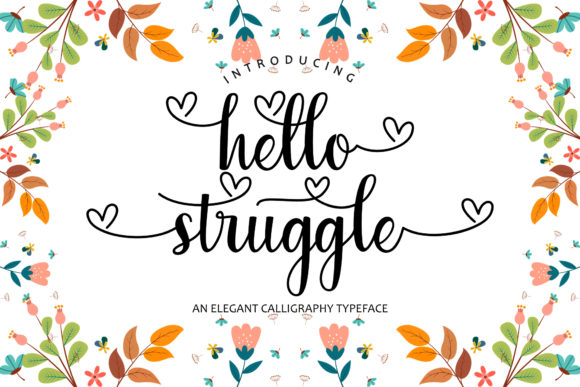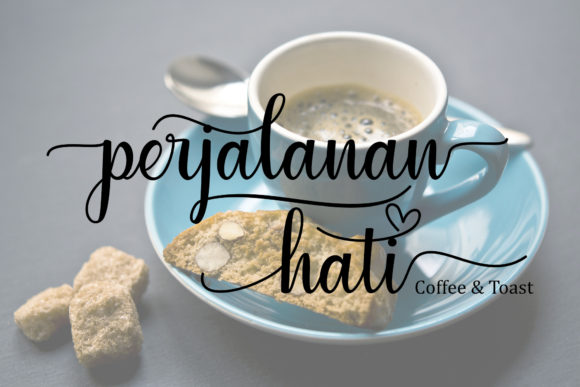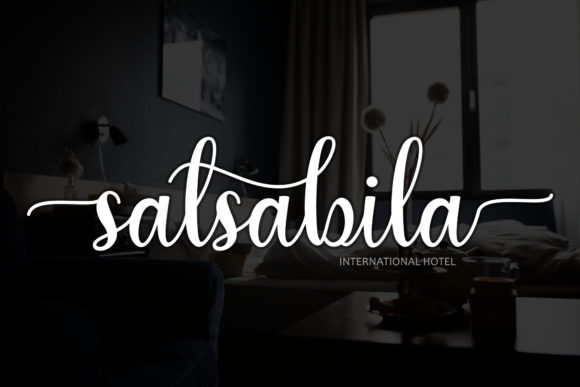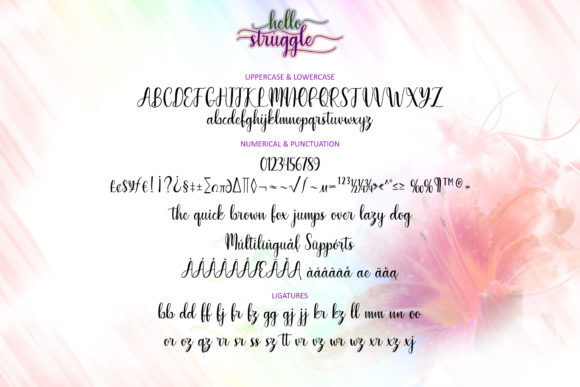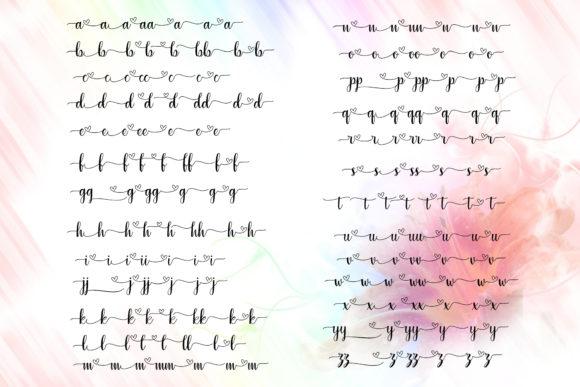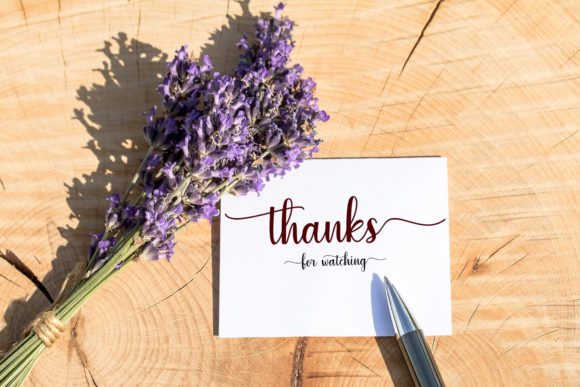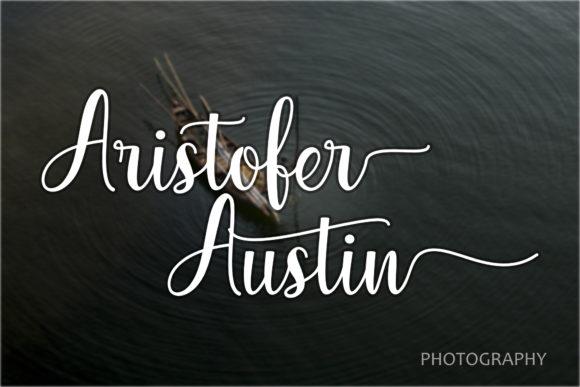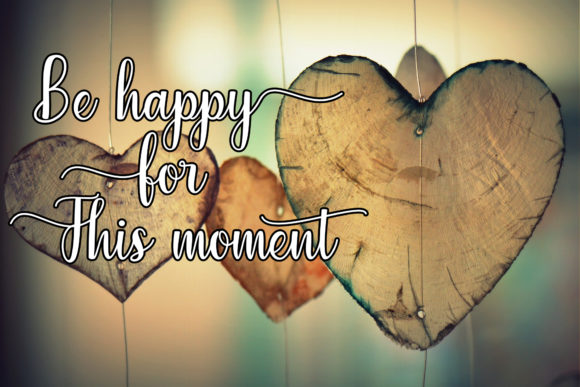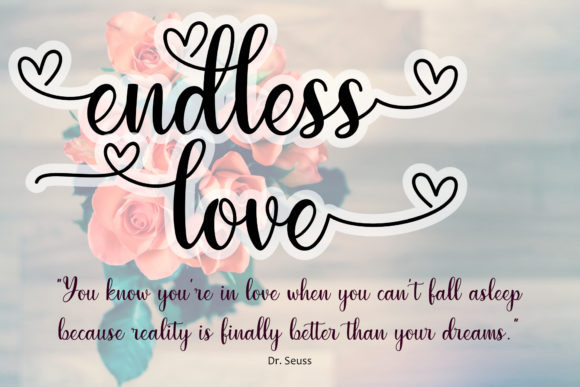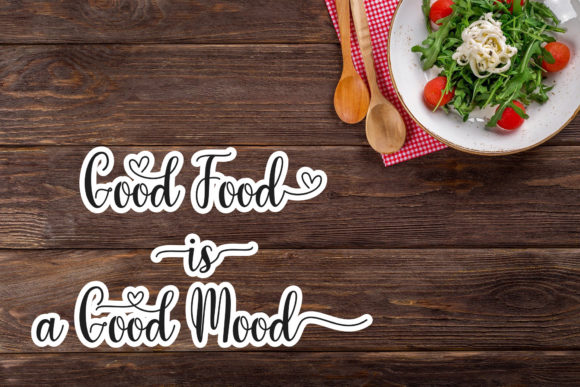
Hello Struggle Font
About Hello Struggle Font
Hello Struggle is a contemporary and artistic calligraphy typeface that offers a plethora of creative possibilities. With an extensive collection of alternates and ligatures, this font allows you to craft unique and eye-catching designs.
The font’s varied baseline adds a touch of dynamism to your text, creating a sense of movement and energy. Its smooth lines give the letterforms a fluid and elegant appearance, making it a perfect choice for sophisticated and visually appealing designs.
Hello Struggle is adorned with a vast array of gorgeous glyphs, featuring over 550 characters to choose from. Among these, you’ll find more than 200 alternate characters that come with swashes, flourishes, and other decorative elements. This rich assortment of options opens up a world of creative opportunities, allowing you to customize and embellish your text to suit any project.
Whether you’re working on invitations, branding materials, posters, quotes, or any design that requires a touch of elegance and uniqueness, Hello Struggle delivers with its artistic flair and versatility.
As a PUA-encoded font, Hello Struggle ensures easy accessibility to all of its glyphs and swashes. This encoding enables you to access and use the vast collection of alternates effortlessly, enhancing your creative process and saving you time.
This font’s decorative elements and elaborate alternates add an air of sophistication and creativity to your designs, making them stand out and leave a lasting impression on your audience.
Whether you’re a designer, calligrapher, or artist, Hello Struggle offers an array of tools to bring your ideas to life. With its extensive character set and artistic touch, this font is well-suited for a wide range of design projects, adding a touch of elegance and creativity to each one.
In summary, Hello Struggle is a modern calligraphy typeface that embraces creativity with its many alternates and ligatures. Its varied baseline and smooth lines create an elegant and dynamic look. With over 550 glyphs, including 200+ alternate characters with swashes and flourishes, this font opens up endless possibilities for unique and visually captivating designs. Being PUA encoded, it ensures easy access to all its decorative elements, streamlining your design process and letting your creativity flourish. Whether you’re designing invitations, branding materials, posters, or quotes, Hello Struggle is your artistic companion for stylish and sophisticated creations.